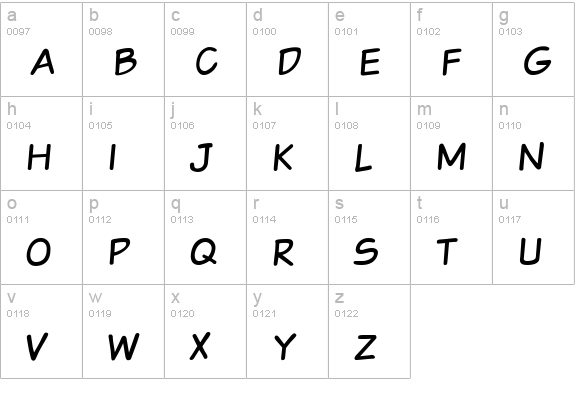
VTCSundaykomixcaps is a vibrant and playful font that will bring a cheerful vibe to any design. With its bold, rounded letters and comic book-inspired style, this font is perfect for creating eye-catching headlines, posters, and other creative projects. The characters are slightly condensed, giving the font a modern and sleek look. Whether you're designing for a children's book, a comic strip, or simply want to add a touch of fun to your designs, VTCSundaykomixcaps is the perfect choice. What makes this font even more appealing is that it is available for free! That's right, you can download VTCSundaykomixcaps at no cost from FontsMarket.com. This means you can enjoy all the benefits of this fantastic font without having to spend a dime. It's a fantastic opportunity to add a unique and playful touch to your designs, without breaking the bank. VTCSundaykomixcaps is not only visually appealing but also highly versatile. Its bold and legible characters make it easy to read in both small and large sizes. Whether you're using it for headlines, titles, or body text, this font will make sure your message gets across loud and clear. Don't miss out on the chance to enhance your designs with this amazing free font. Head over to FontsMarket.com and download VTCSundaykomixcaps today. Join the countless designers who have already discovered the power of this font and let your creativity shine!